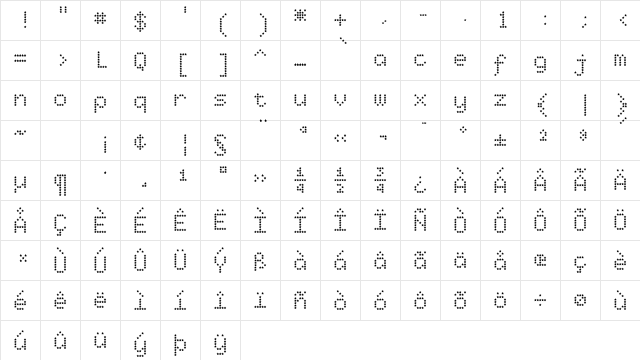
StarryTypeLA Regular
Design Context for StarryTypeLA Typeface
StarryTypeLA takes a measured approach to typography — its balanced proportions and neutral character make it a reliable workhorse for both digital and print work.